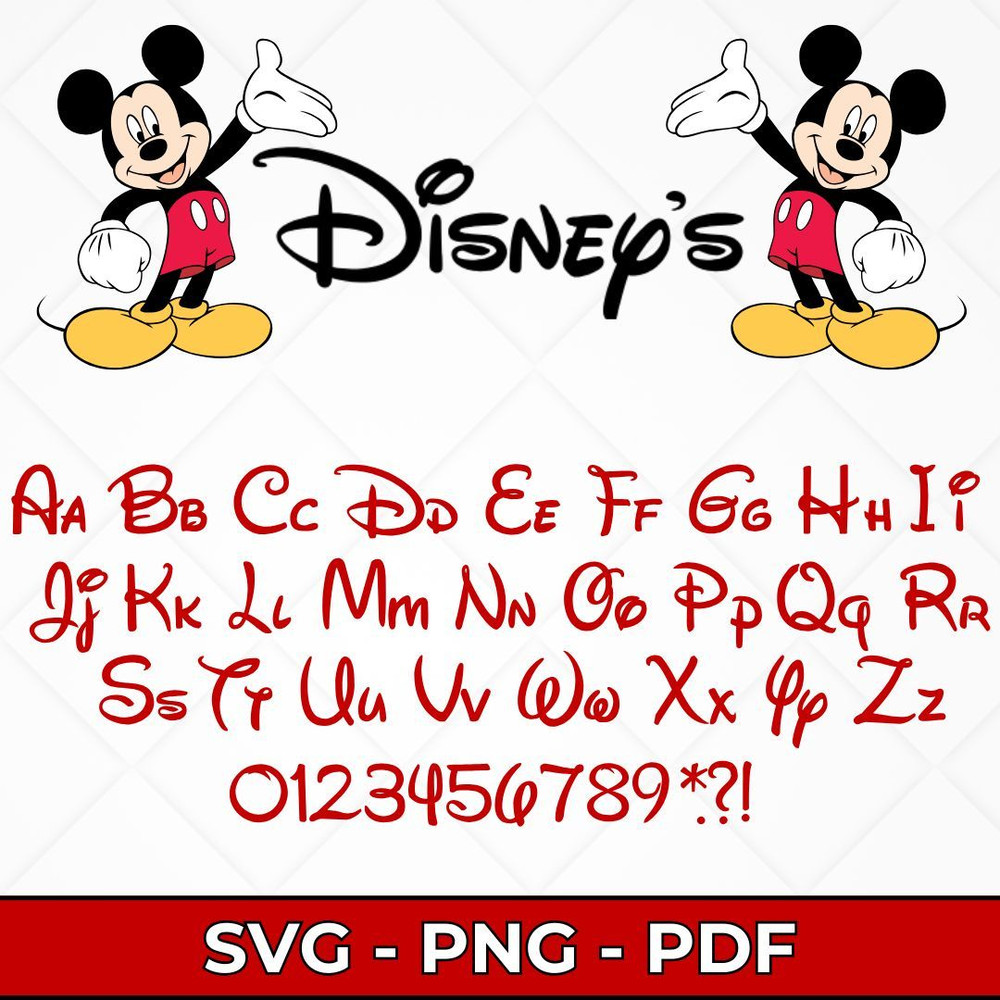
Disney Font SVG Bundle, Disney-Inspired Font Designs, Disney Alphabet SVG, Digital Font Bundle for Crafts
Unleash your creativity with our Disney Font SVG Bundle! This collection features a variety of Disney-inspired fonts that are perfect for your crafting needs. Whether you're designing personalized t-shirts, mugs, posters, or any other DIY project, these fonts will add a magical touch to your creations.